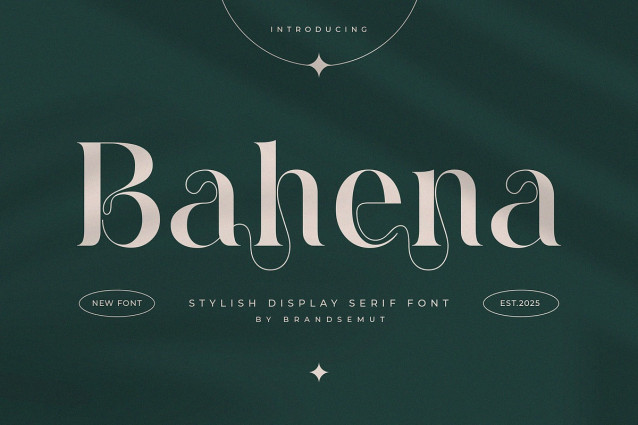
Bahena Font
Bahena Font is a luxurious serif typeface designed with meticulous attention to detail, featuring graceful curves, refined strokes, and sweeping swashes that exude femininity and charm. Its high contrast between thick and thin strokes, paired with stylish ligatures and elegant alternate characters, makes Bahena a perfect choice for premium branding and sophisticated designs.
Whether you are working on a high-end fashion brand, a wedding stationery suite, a luxury product label, or a personal logo, Bahena will elevate your typography to the next level. This font is especially well-suited for editorial designs, social media graphics, business cards, packaging, and website headers where elegance and visual impact are key.